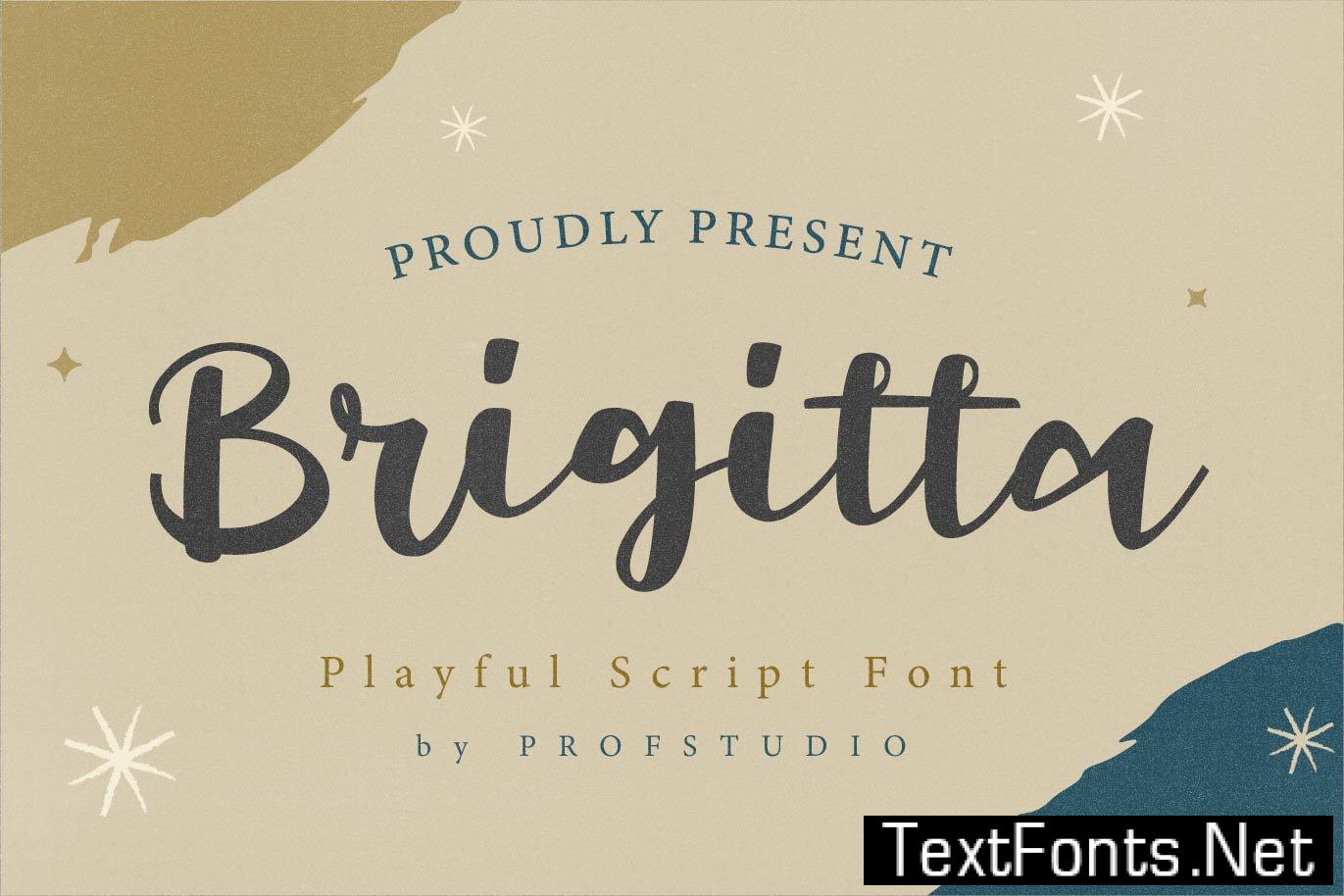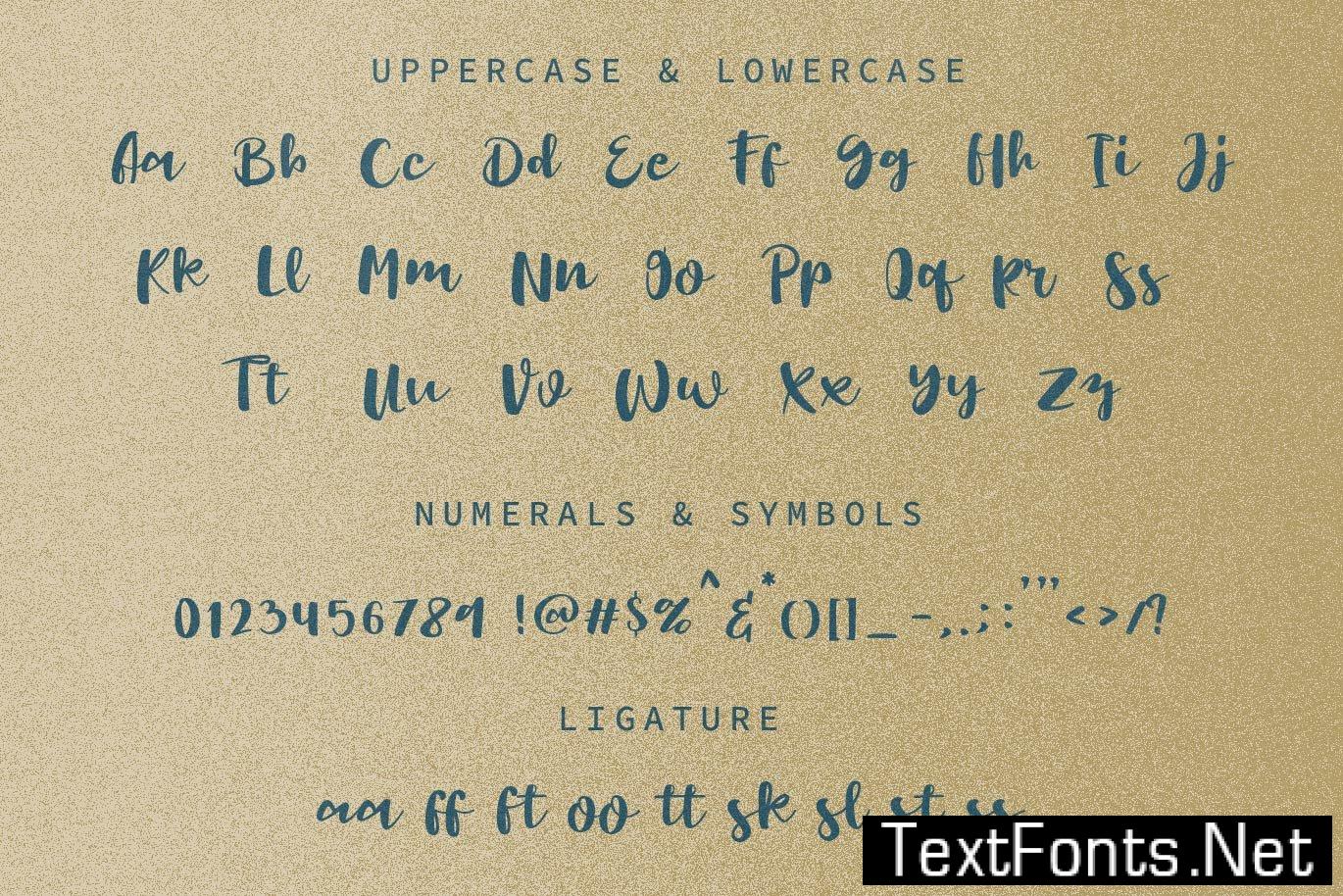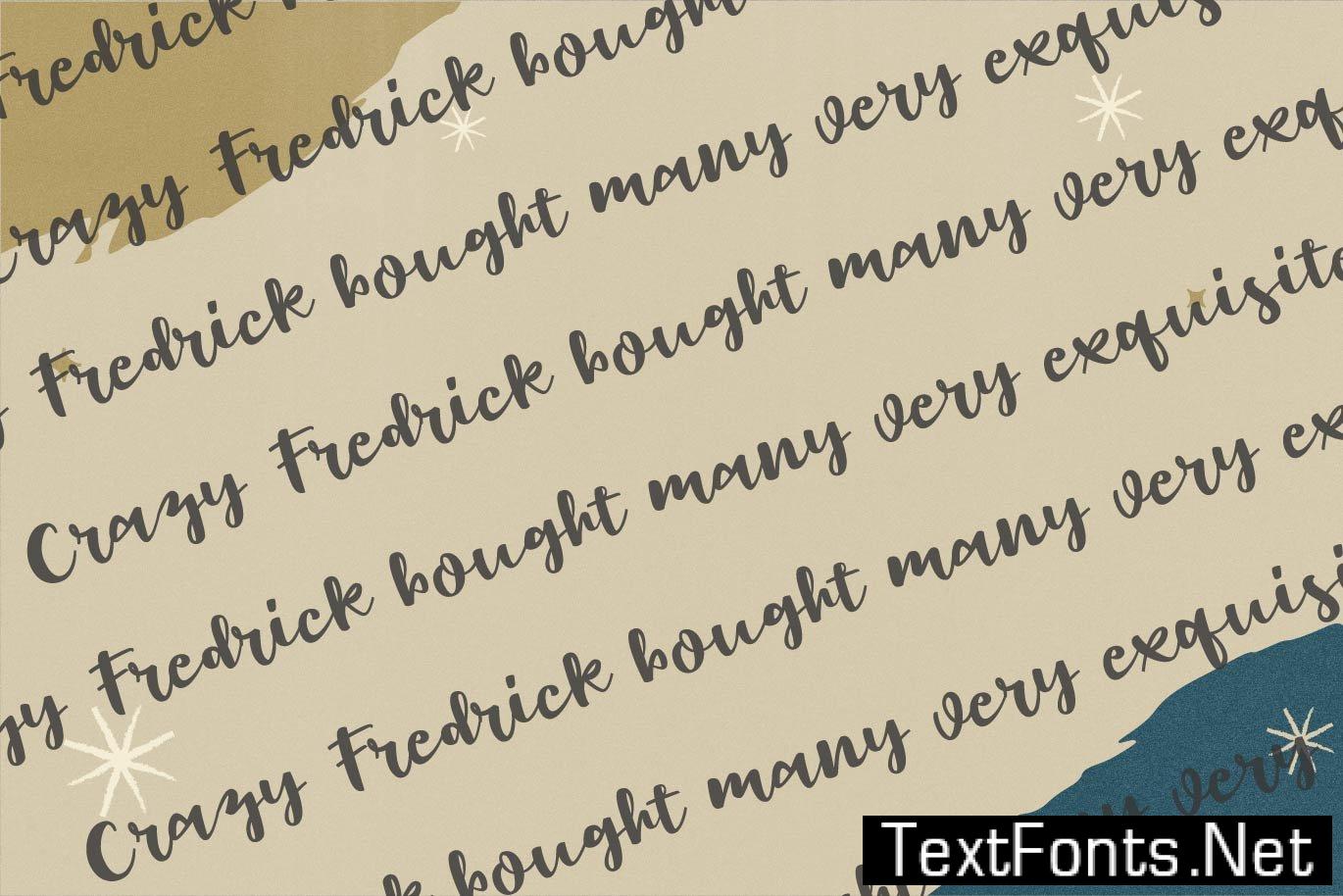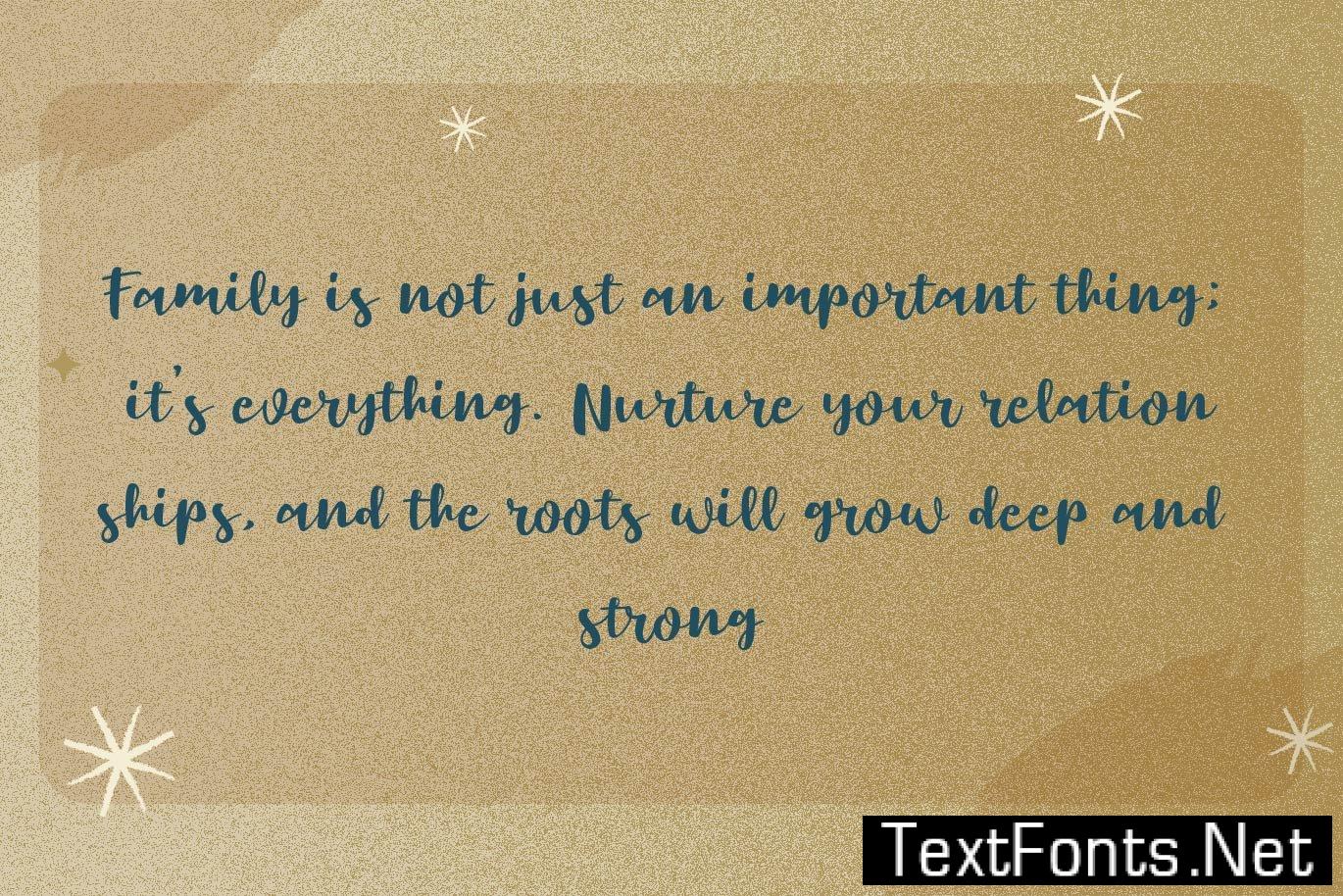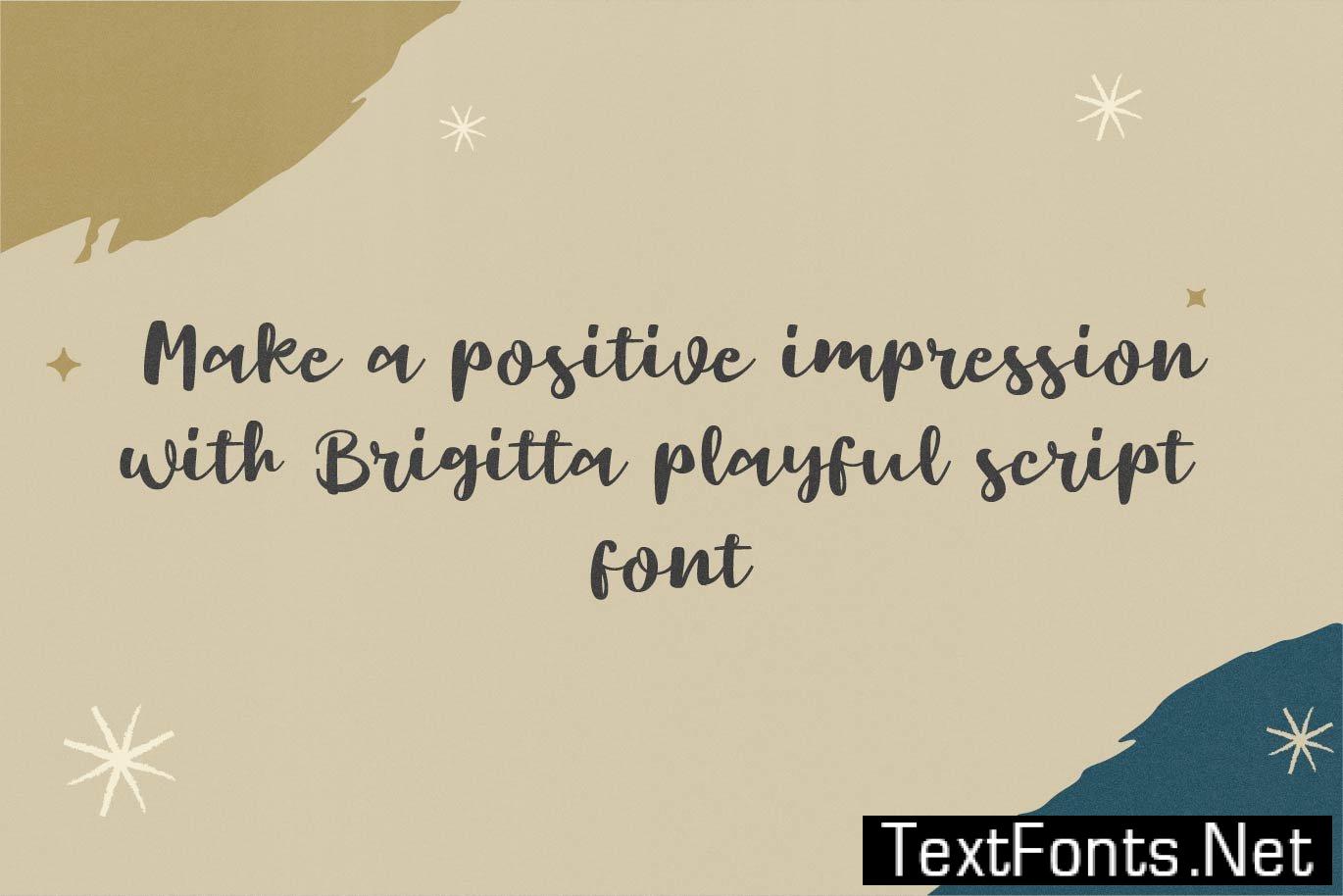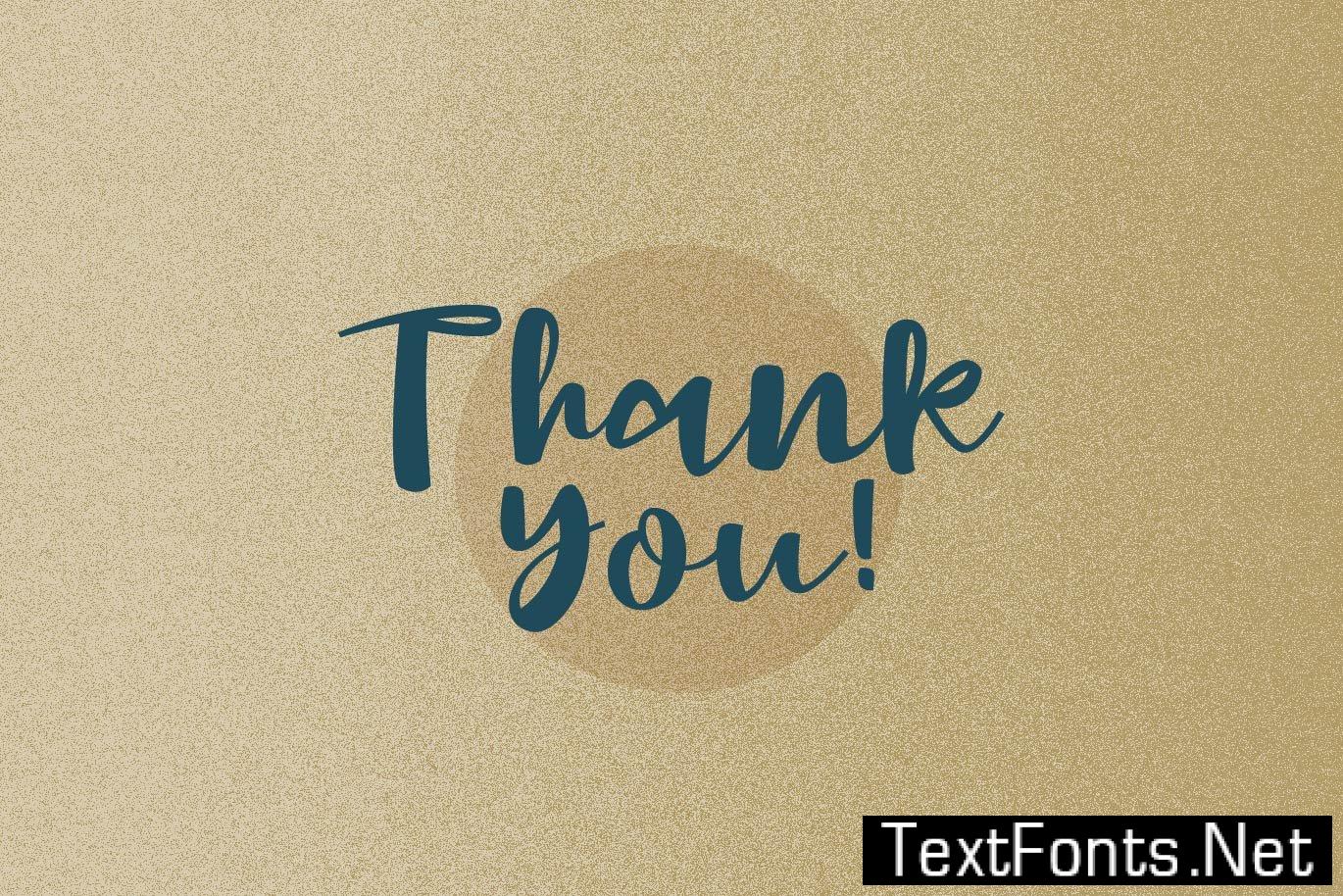
Brigitta – Casual Handwritten Font which can be interpreted professional. we keep this font looks playful, modern, stylish, readable, stylish, catchy and easy to use.
Brigitta – is the great choice for photography, branding, event, signature or signature logo design magazine and many other design project. Brigitta here to make your work to high level!!!
Features:
Standar character A-Z and a-z
Numberial and Functional
Ligature